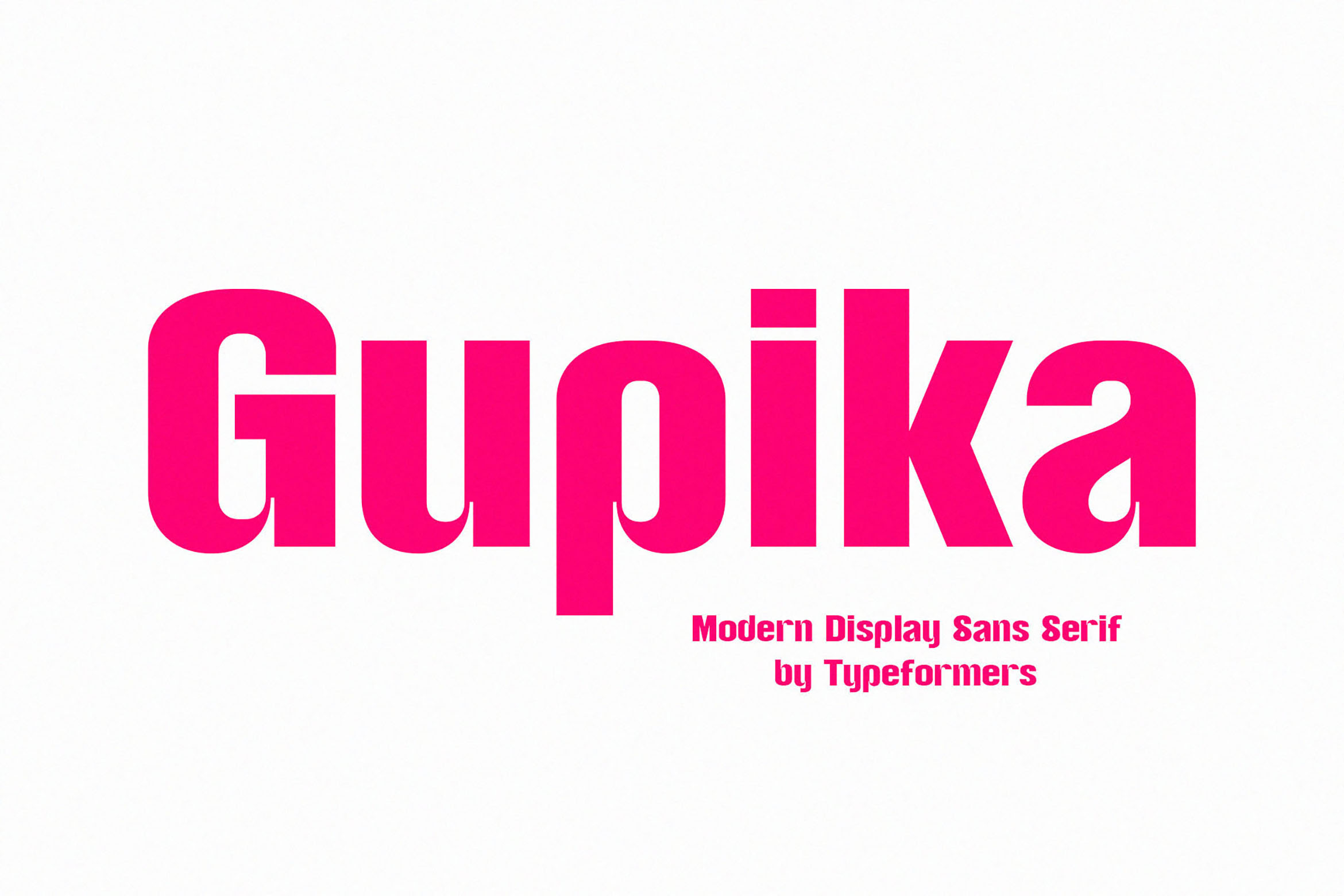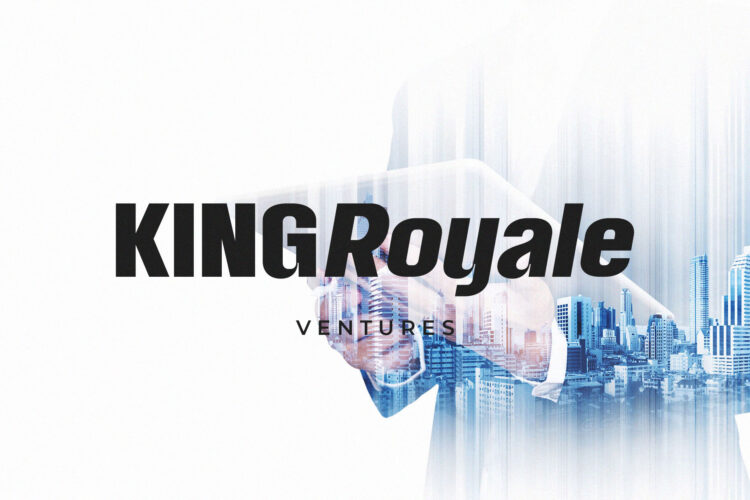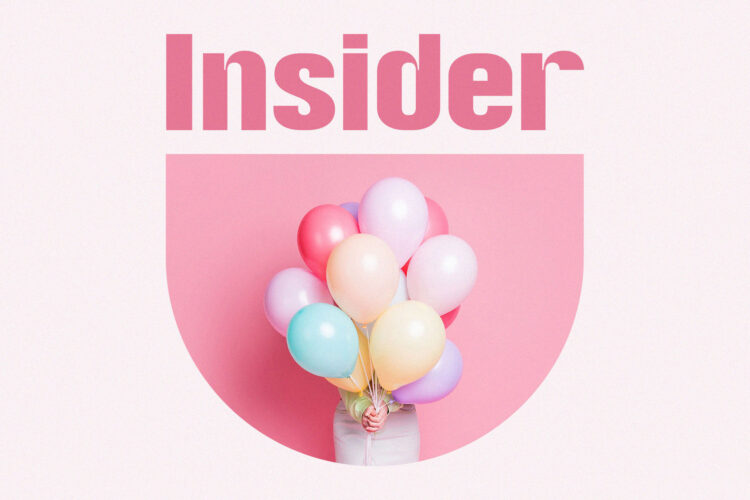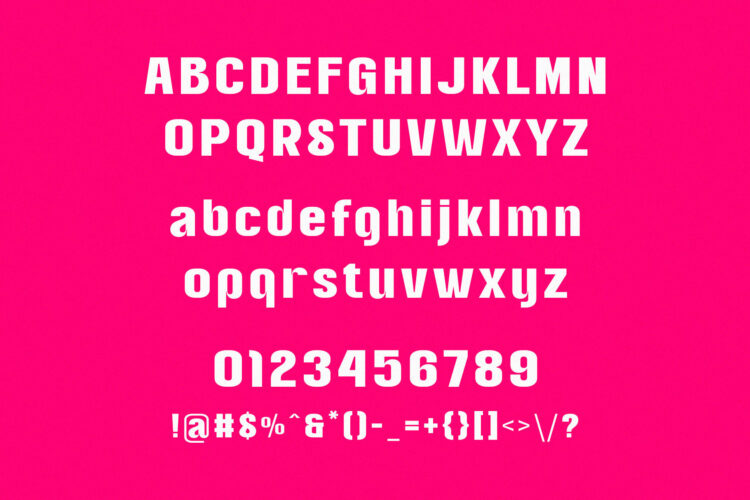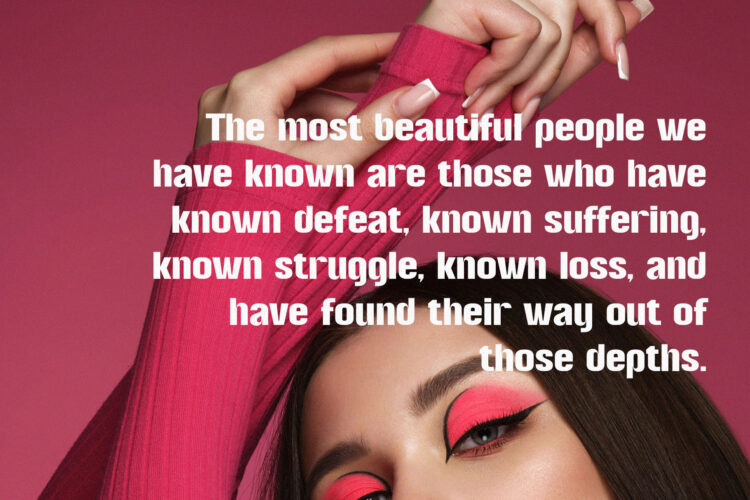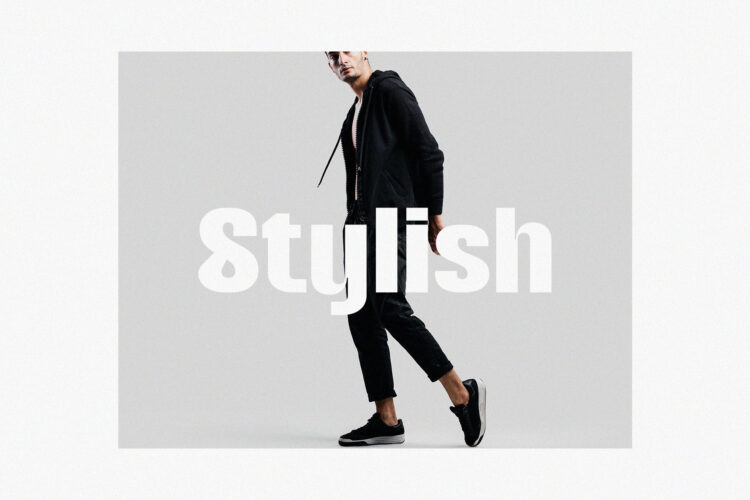
Introducing Gupika – Modern Display Sans Serif.
Gupika is a modern and simple font, best used as a display for headings, logos, branding, magazines, product packaging and invitations.
Gupika – Modern Display Sans Serif